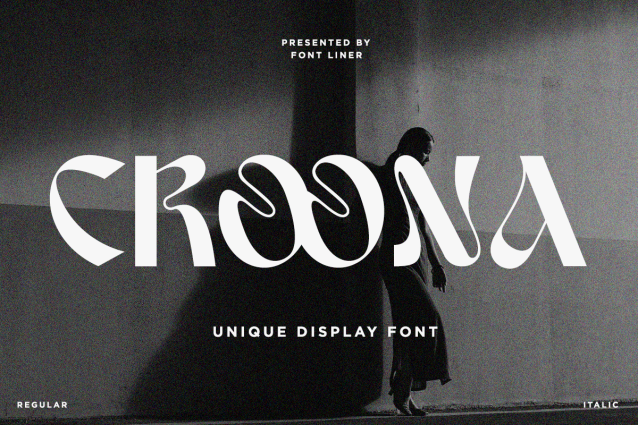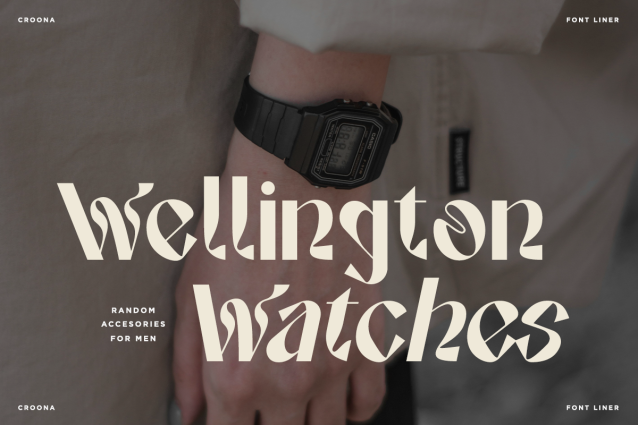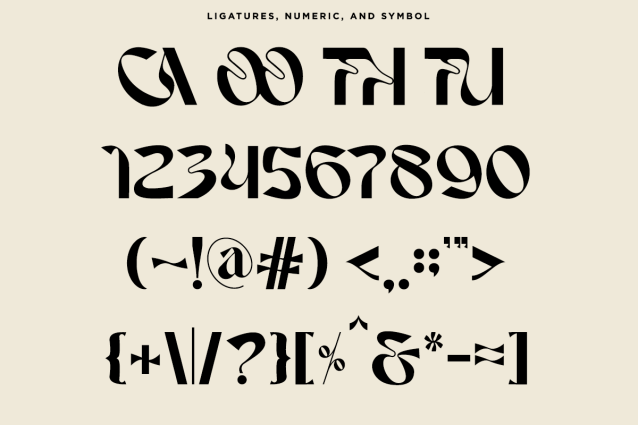
Croona is a unique artistic display font that combines expressive curves, experimental letterforms, and contemporary craftsmanship into one distinctive typeface. Inspired by modern editorial aesthetics and handcrafted typography, Croona transforms ordinary text into captivating visual statements. Its bold personality and unconventional design make it ideal for brands that seek originality and unforgettable style.
Perfect for fashion branding, editorial headlines, album covers, luxury packaging, logos, posters, magazines, beauty products, boutique identities, apparel, social media, creative campaigns, book covers, invitations, advertising, merchandise, and premium visual identities, Croona includes uppercase, lowercase, numerals, punctuation, multilingual support, stylistic alternates, and decorative characters, giving designers complete creative freedom.
Whether you’re building an avant-garde fashion brand, designing artistic editorials, creating premium packaging, or producing expressive marketing visuals, Croona delivers elegance with a bold creative twist. Its distinctive character and decorative details make it the perfect display font for projects that demand originality, sophistication, and lasting visual impact.